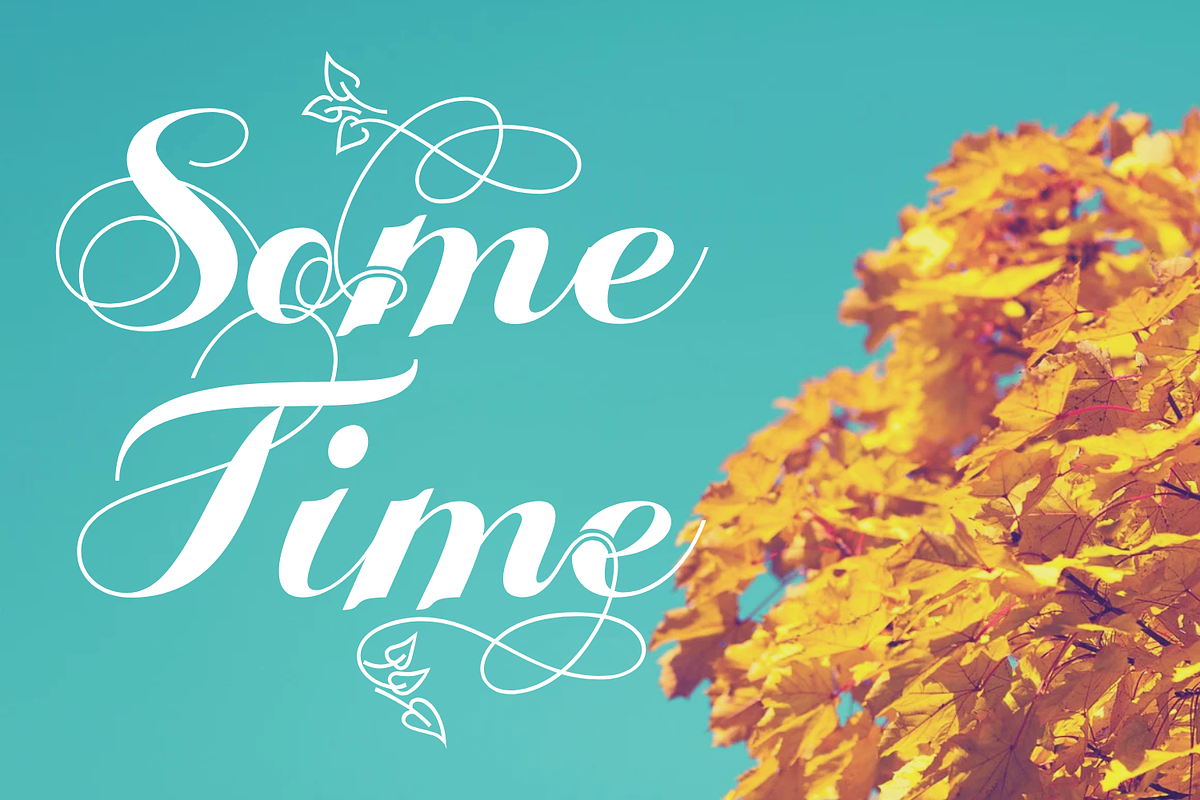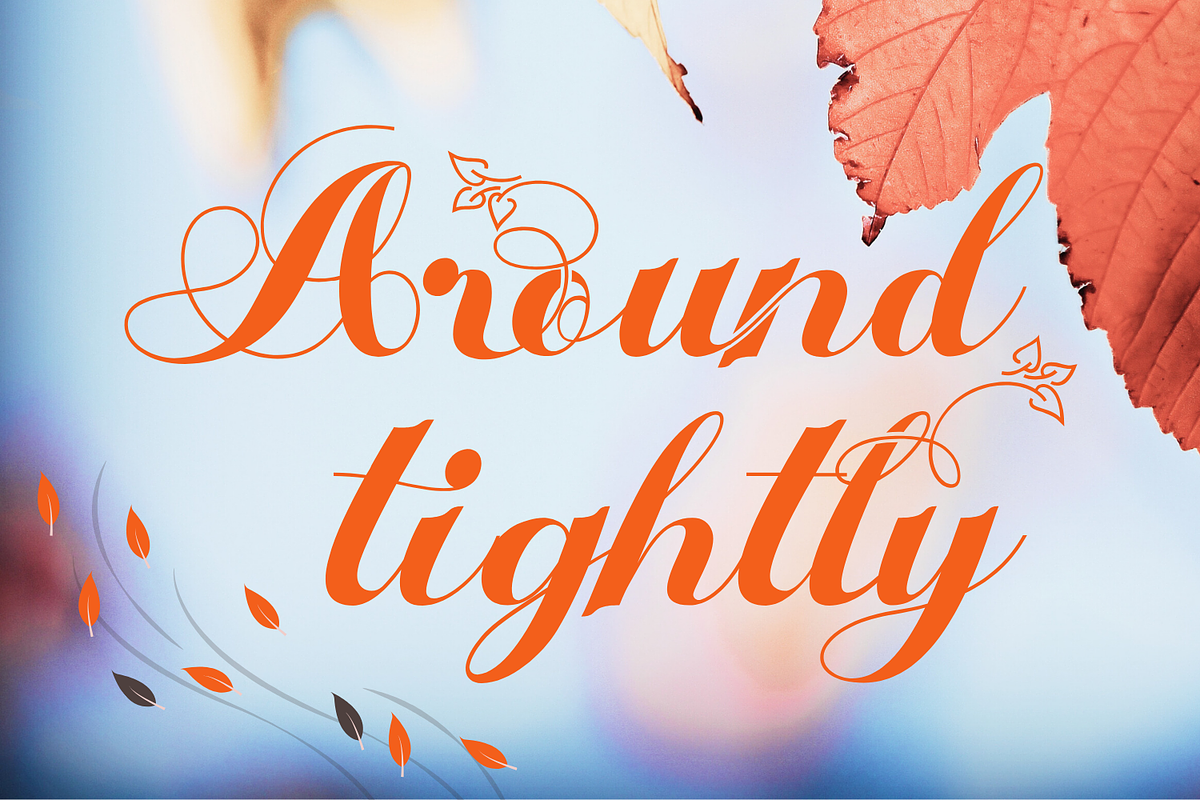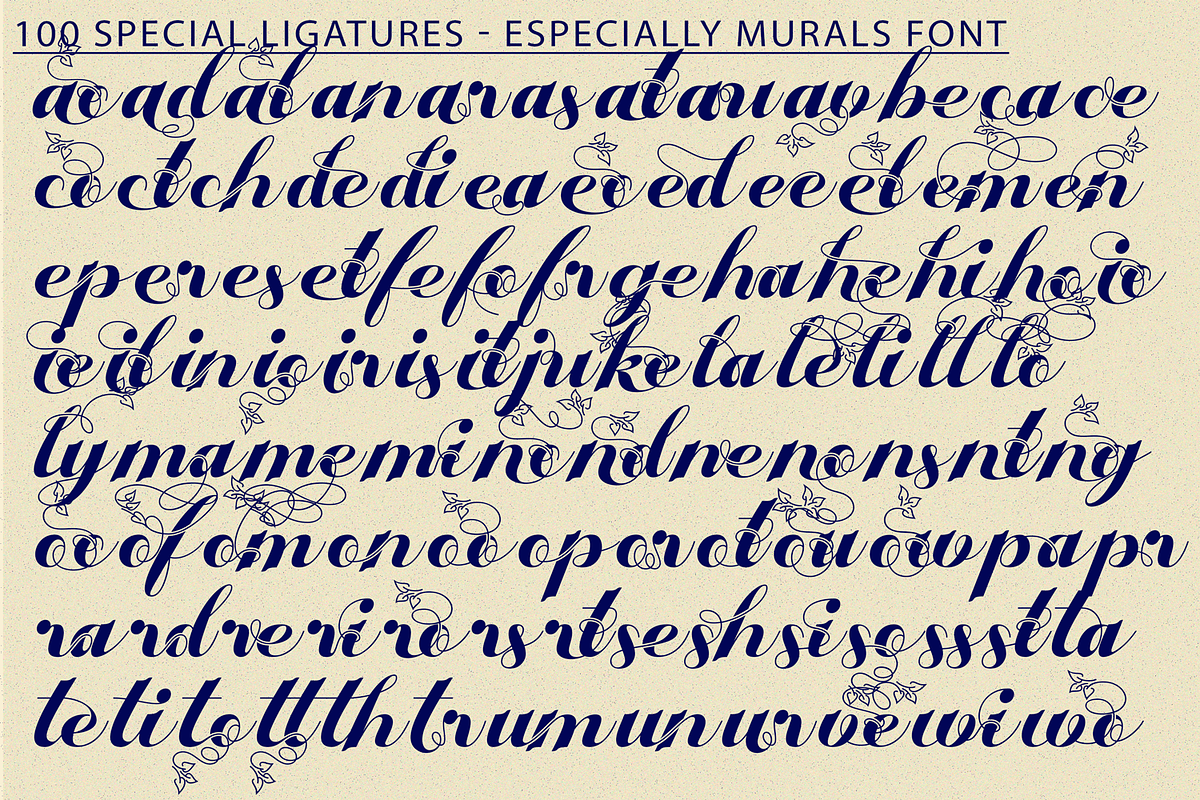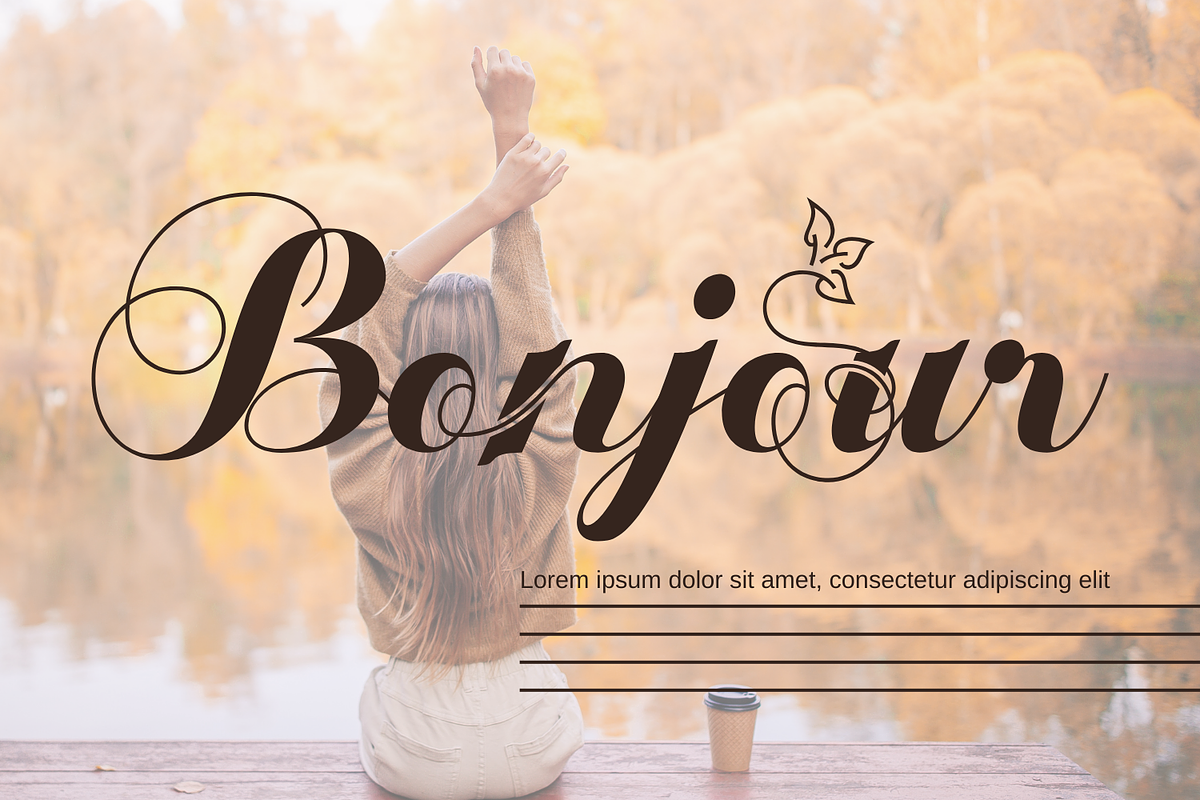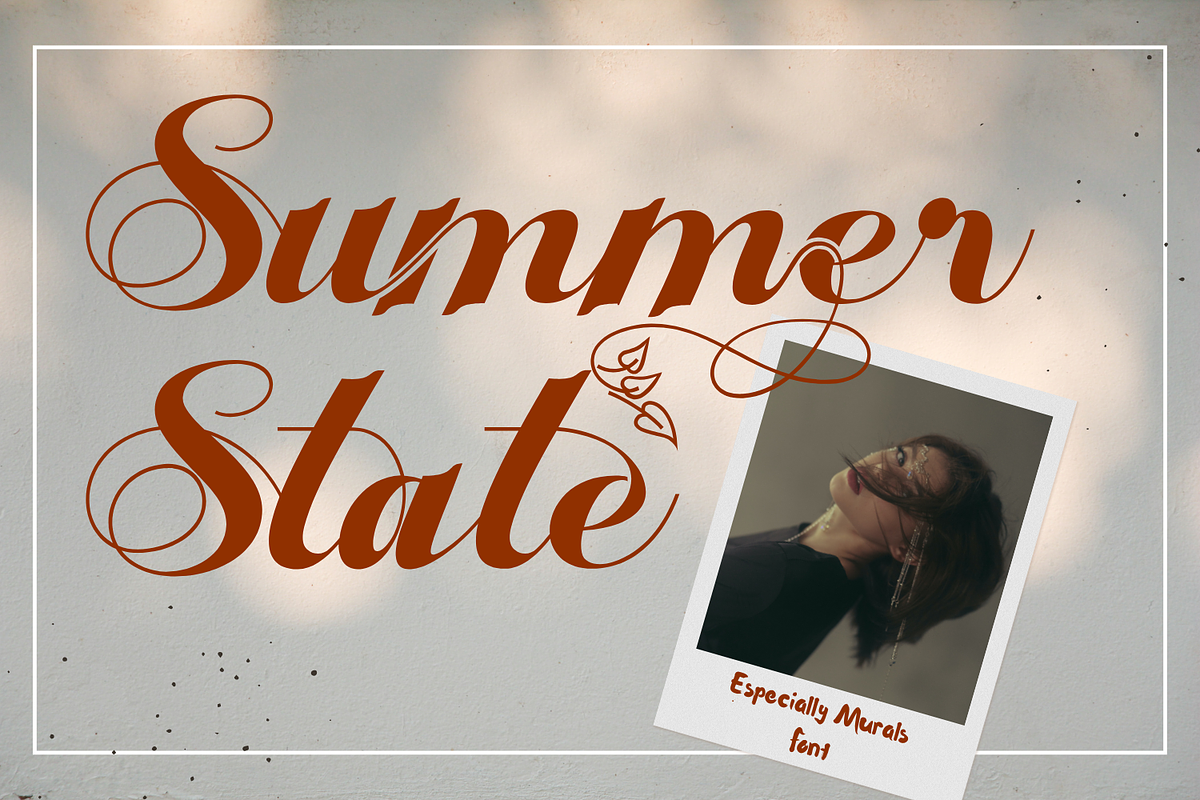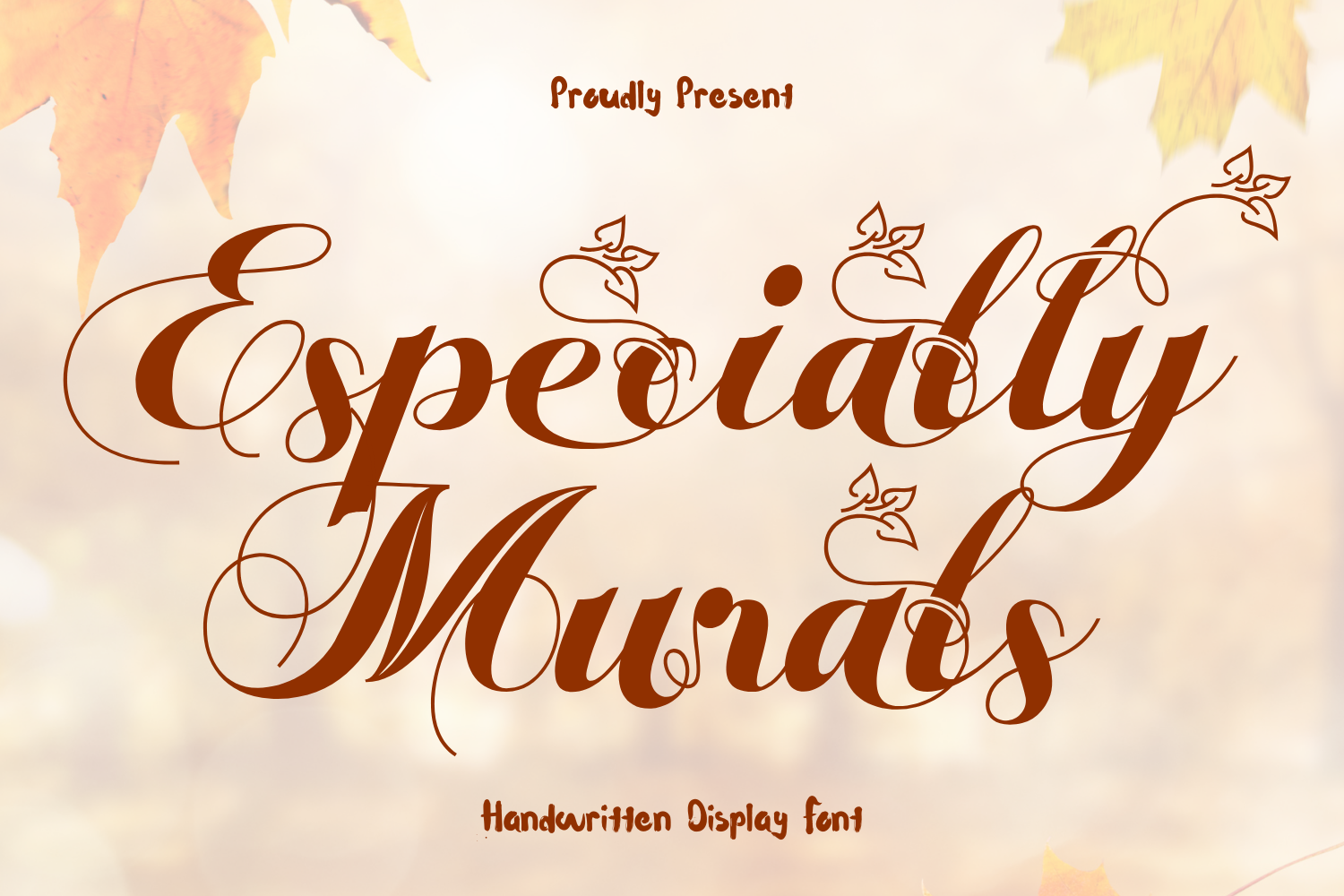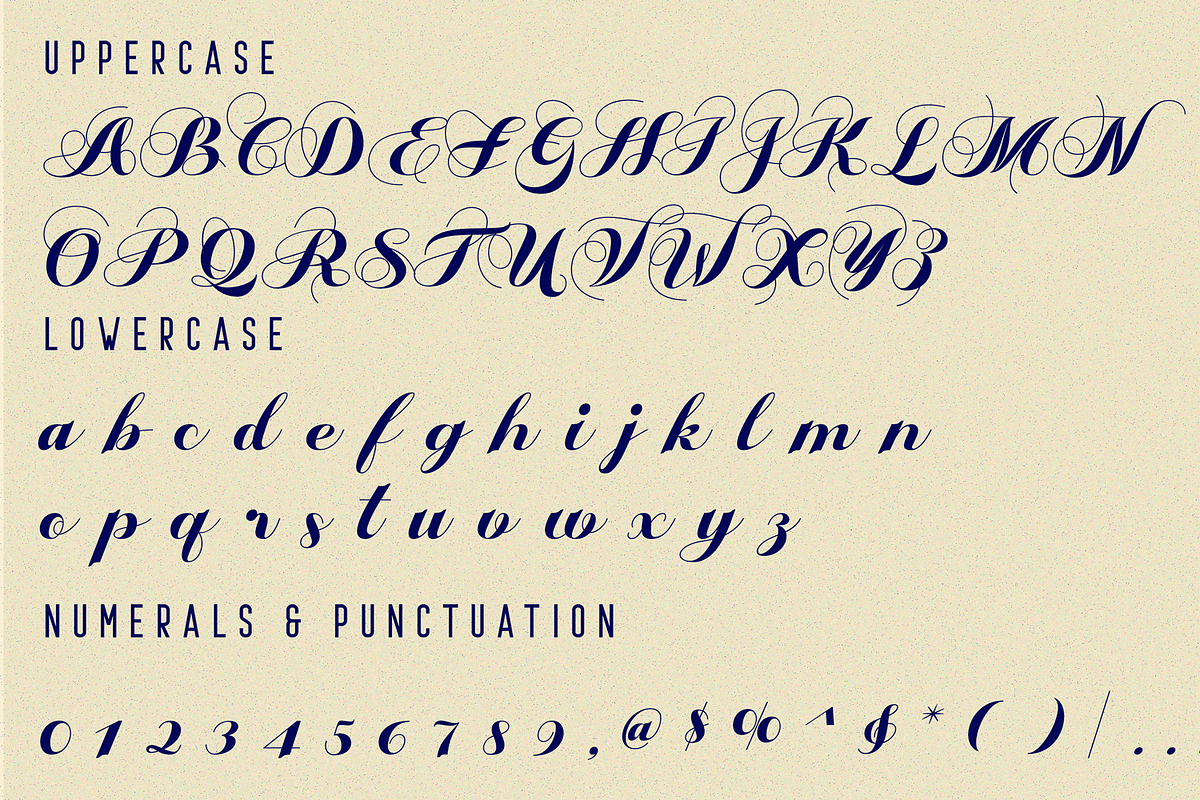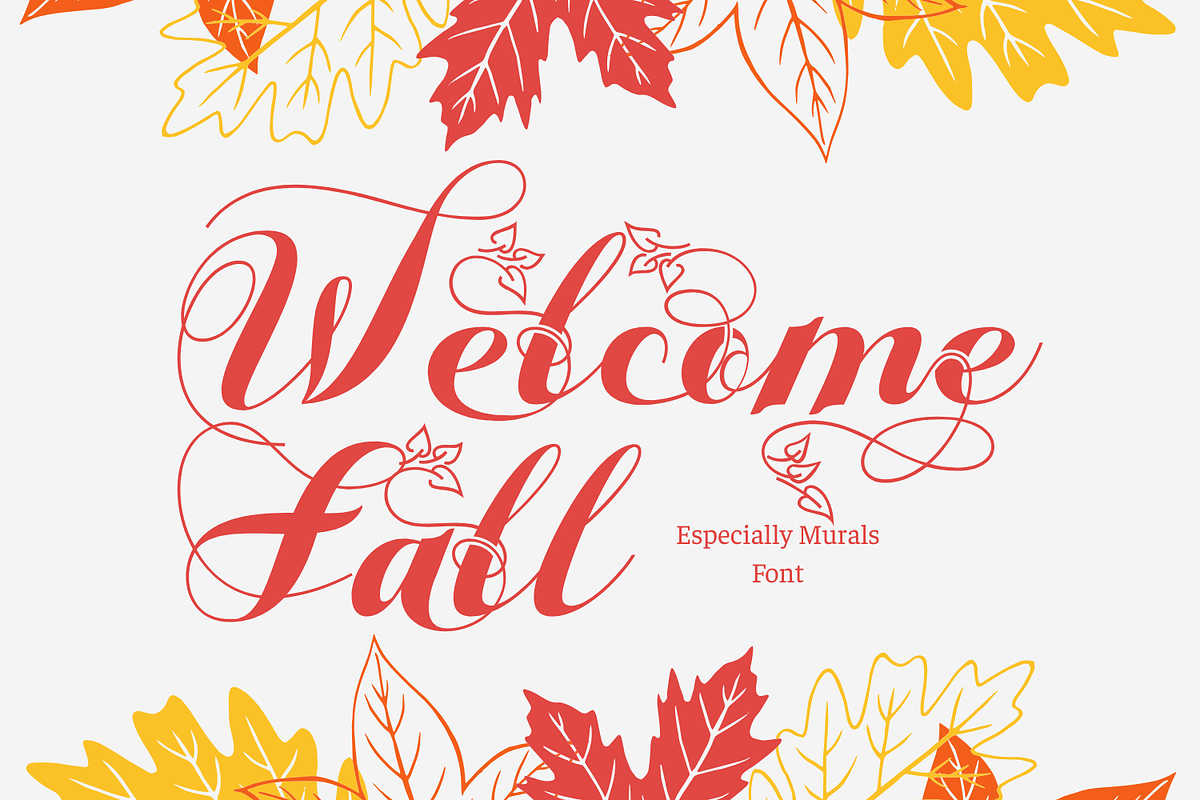
Especially Murals - Calligraphy Font
Especially Murals - Calligraphy Font - An Elegant Calligraphy Script Font, a graceful script font that combines classic calligraphy with decorative flourishes and botanical accents. Its flowing strokes and ornate details evoke timeless sophistication, making it perfect for wedding invitations, luxury branding, handcrafted packaging, book covers, and artistic stationery. Each letter is carefully designed with swirling curves and leafy ornaments, giving your typography a romantic and artistic flair. Whether used for elegant logos or decorative titles, this font brings refinement and beauty to any creative project.
- Uppercase & Lowercase Letters
- 100+ Ornamental Ligatures
- Accented Characters for Multilingual Support
About 100 ligatures combined with Stylistic Alternates Font:
ac ad al an ar as at au av be ca ce ch co ct de di ea ec ed ee el em en ep er es et fe fo fr ge ha he hi ho ie ic il in io ir is it ju ke la le li ll lo ly ma me mi nc nd ne ng no nt ns oc of om on oo op or ot ou ow pa pr ra rd re ri ro rs rt se sh si so ss st ta te th ti to tr tt um un ur ve wi wo